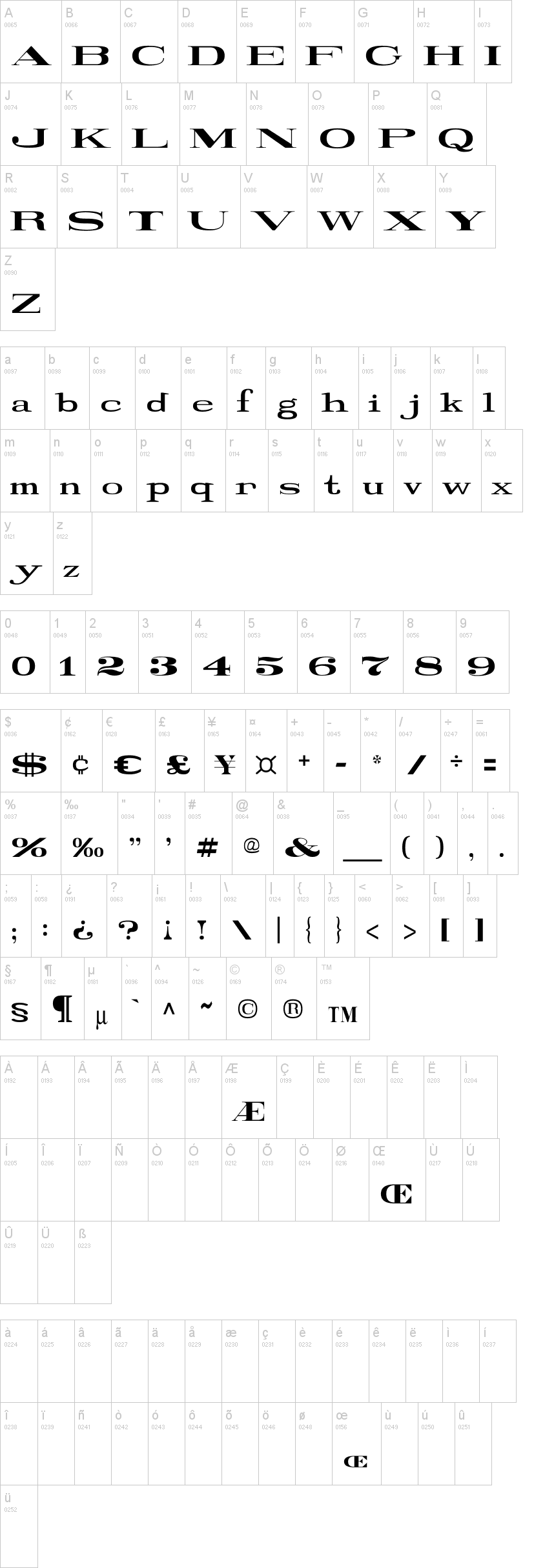
This Railroad Roman 1916 font is similar, but not an exact replication, of characters displayed on numerous railroad cars, engines and equipment used throughout North America and other areas of the world.
This type of lettering is very unique due to the extreme expanded style. Styles may include regular, bold, italic and bold italic. The 1916 represents the year when the railroad system within North America, was at the peak with the greatest miles of tracks laid across the continent.
These additional font widths based upon 500 as the Caps height:
Ultra-expanded - 100,0% / 1,800 points (Completed)
Extra-expanded - 88.8% / 1,600 points (To be completed)
Expanded - 77.7% / 1,400 points (To be completed)
Semi-expanded - 66.6% / 1,200 points (To be completed)
Normal - 55.5% / 1,000 points (Completed)
Semi-condensed - 44.4% / 800 points (To be completed)
Condensed - 33.3% / 600 points (To be completed)
Extra-condensed - 22.2% / 400 points (To be completed)
Ultra-condensed - 11.1% / 200 points (To be completed)